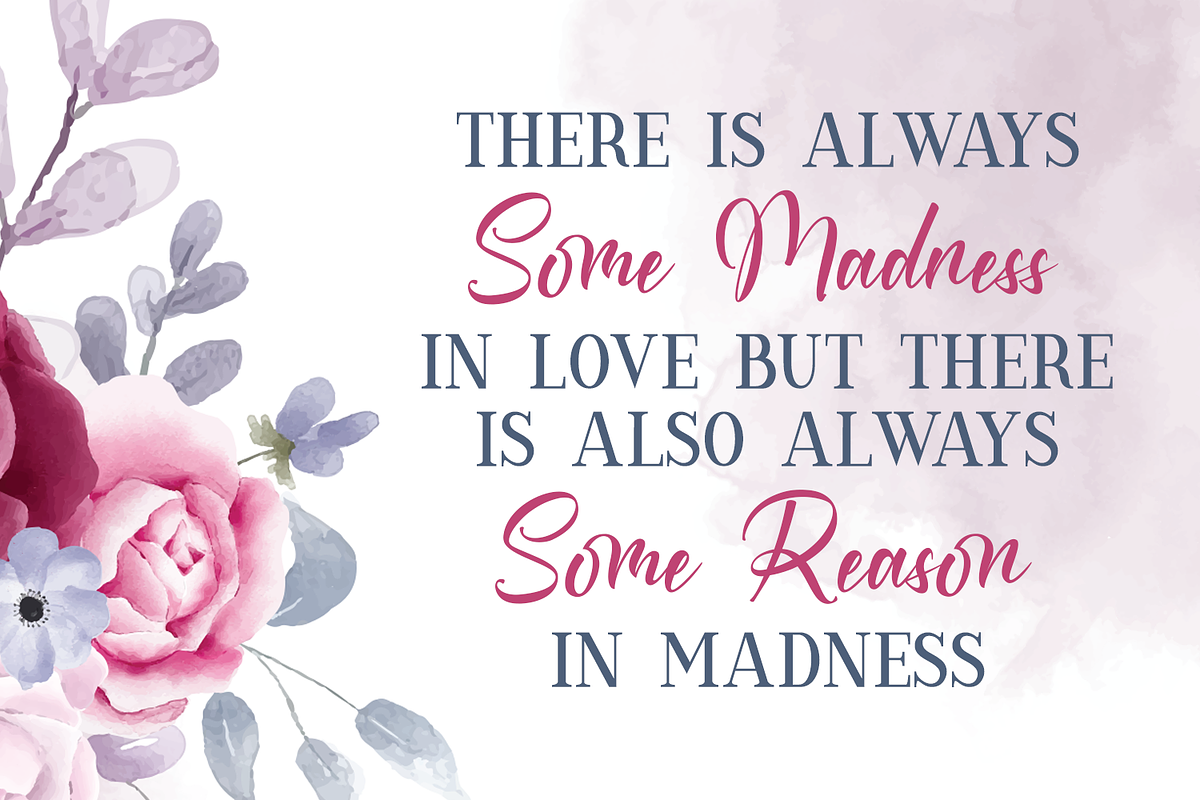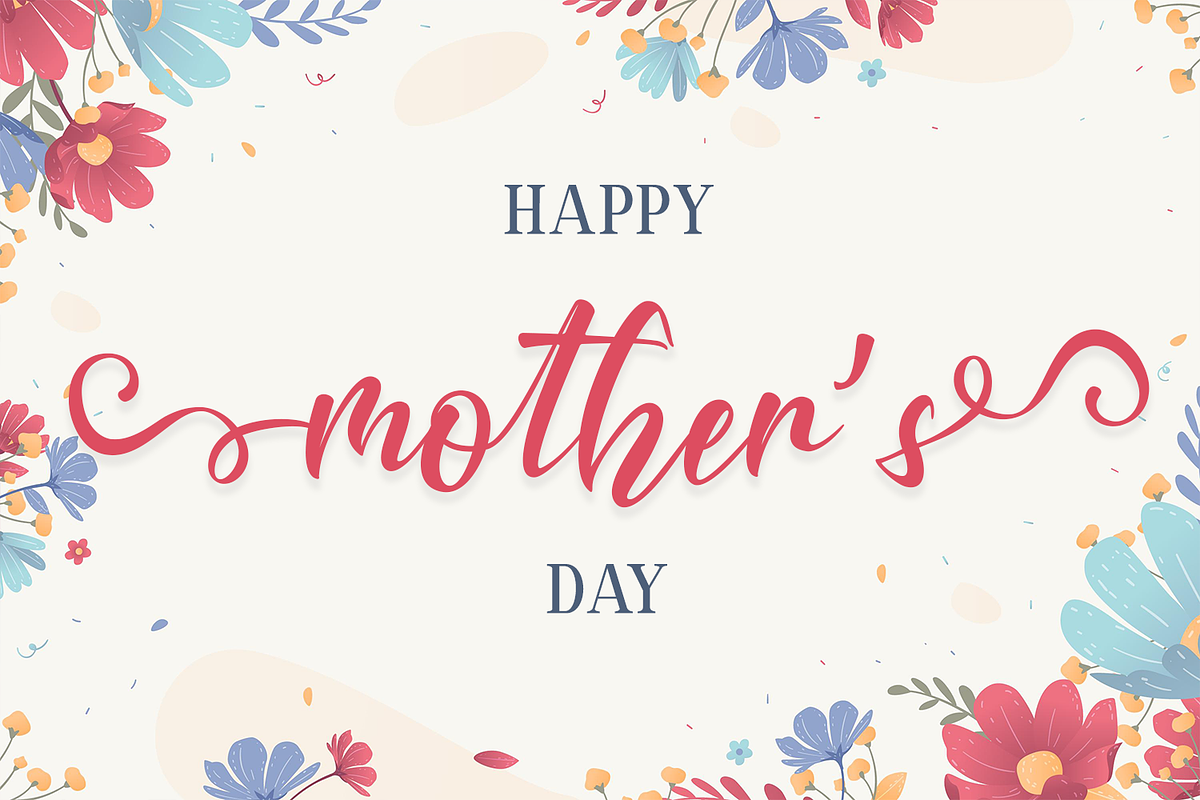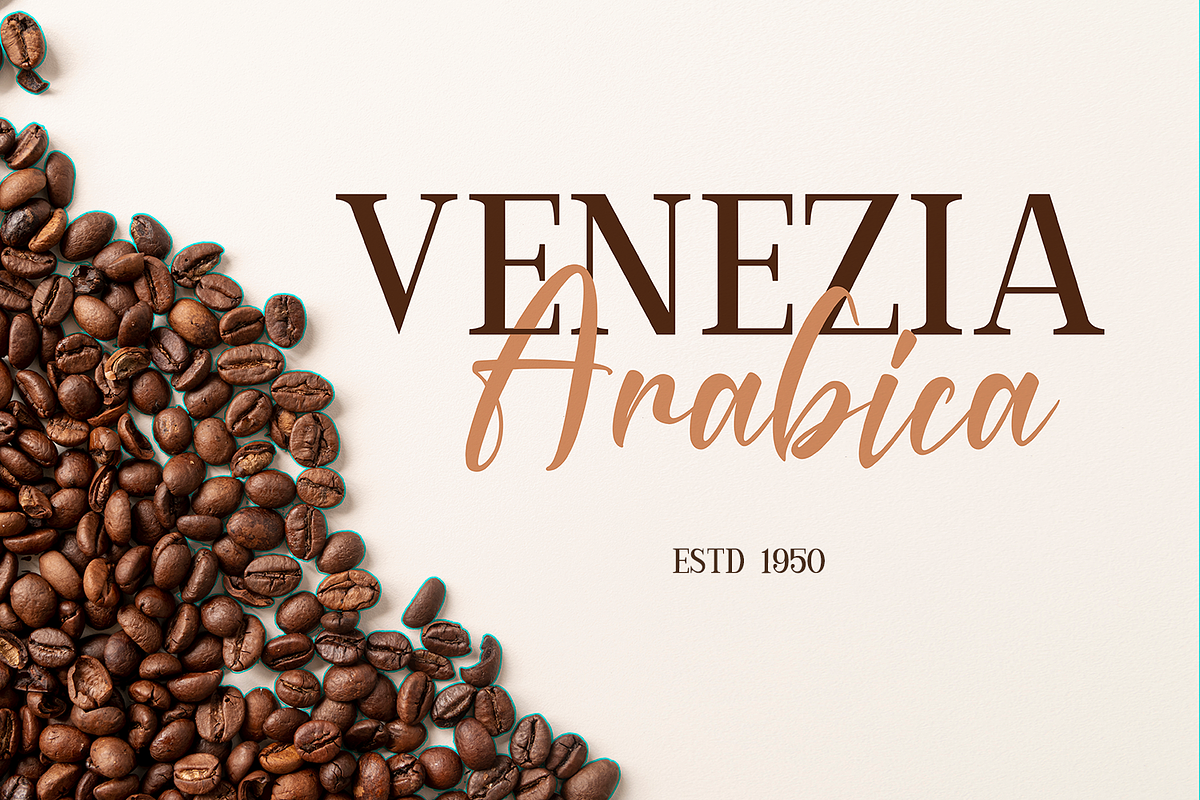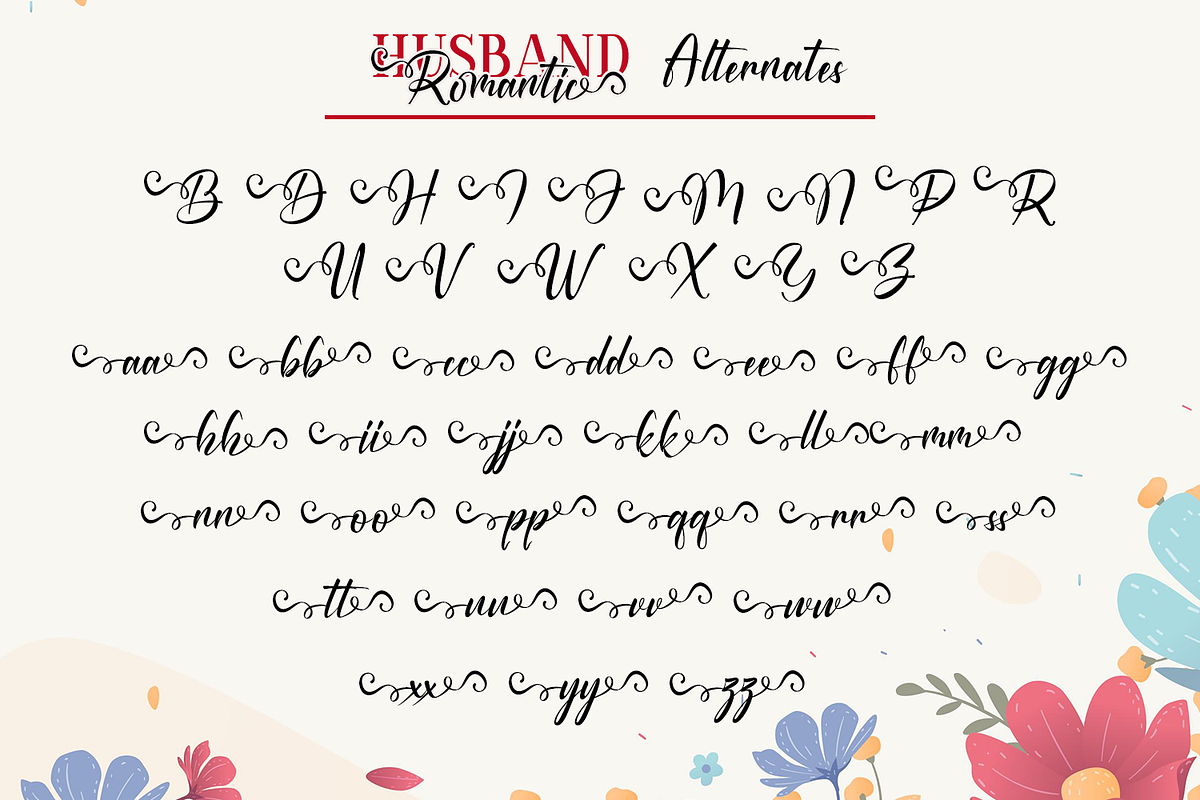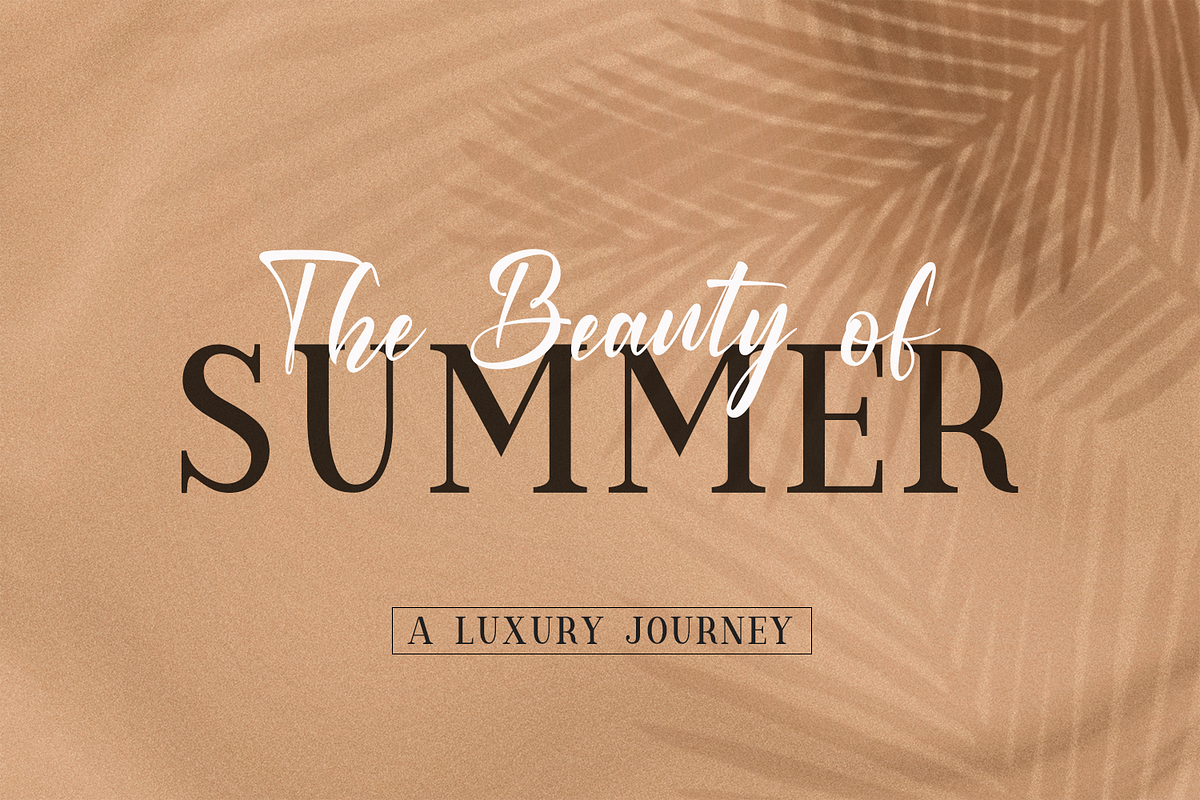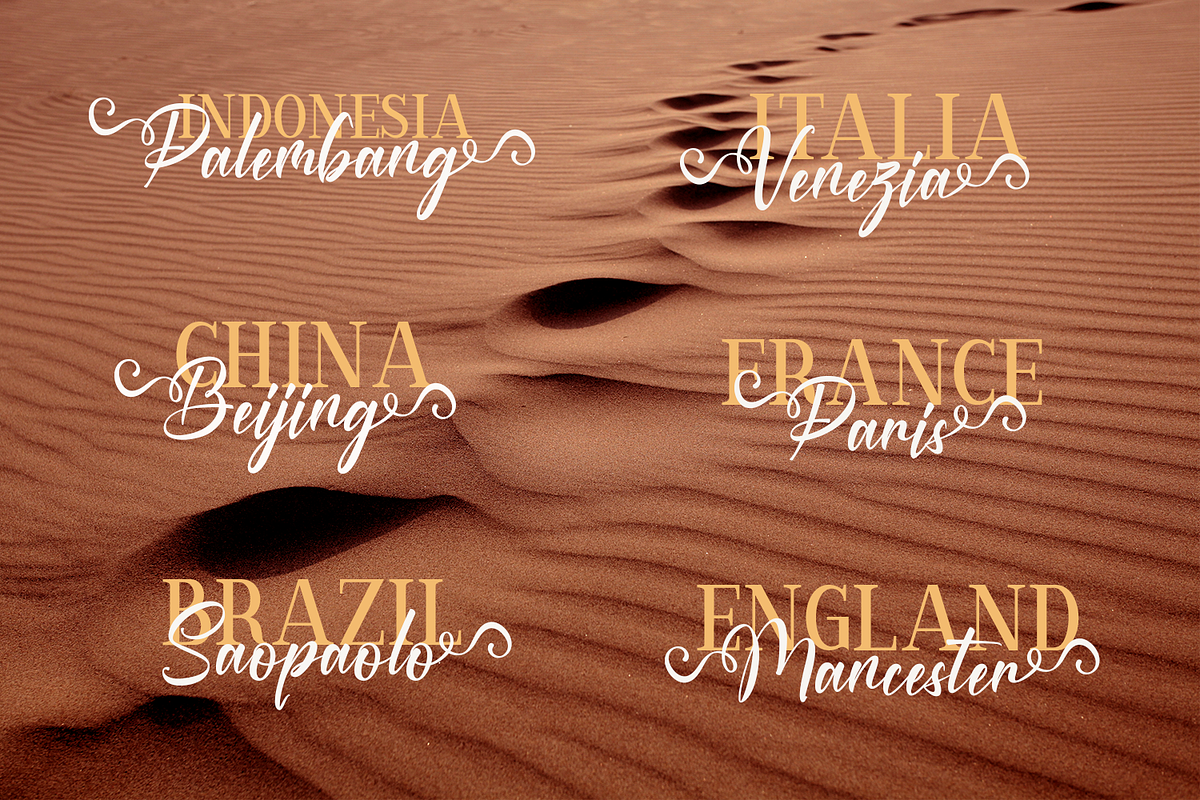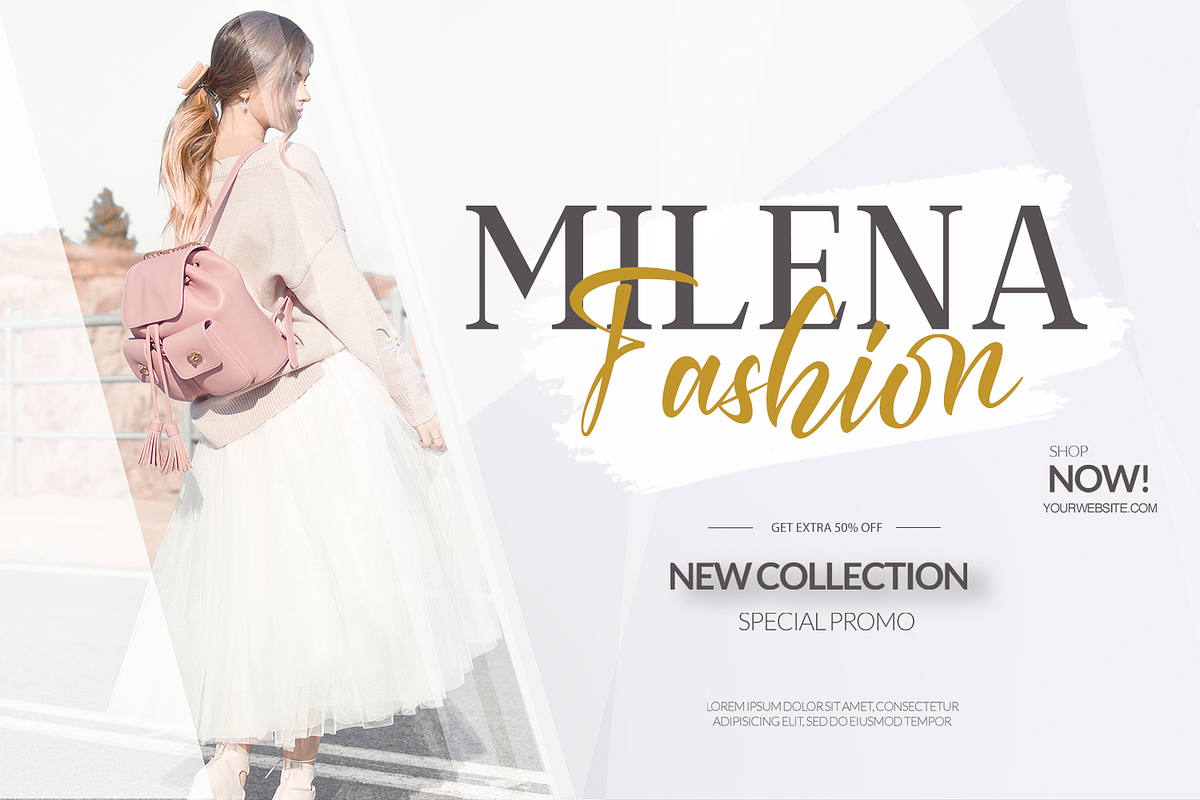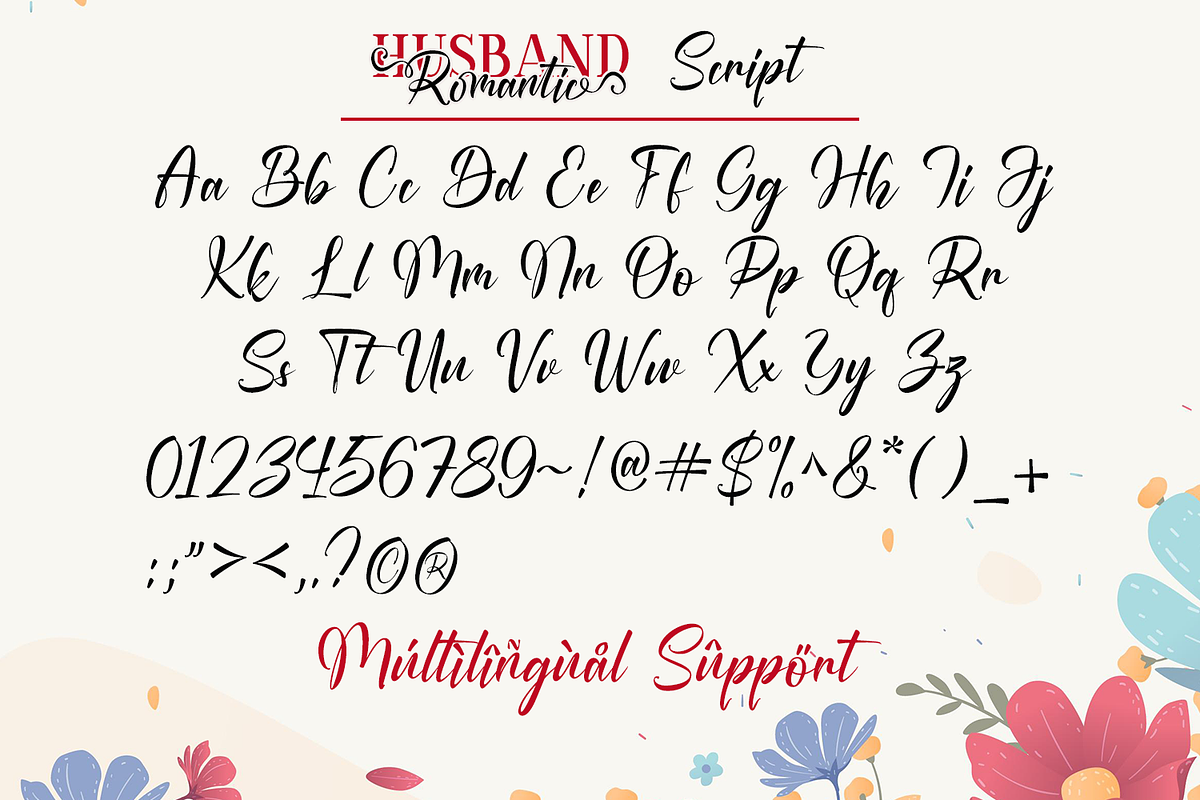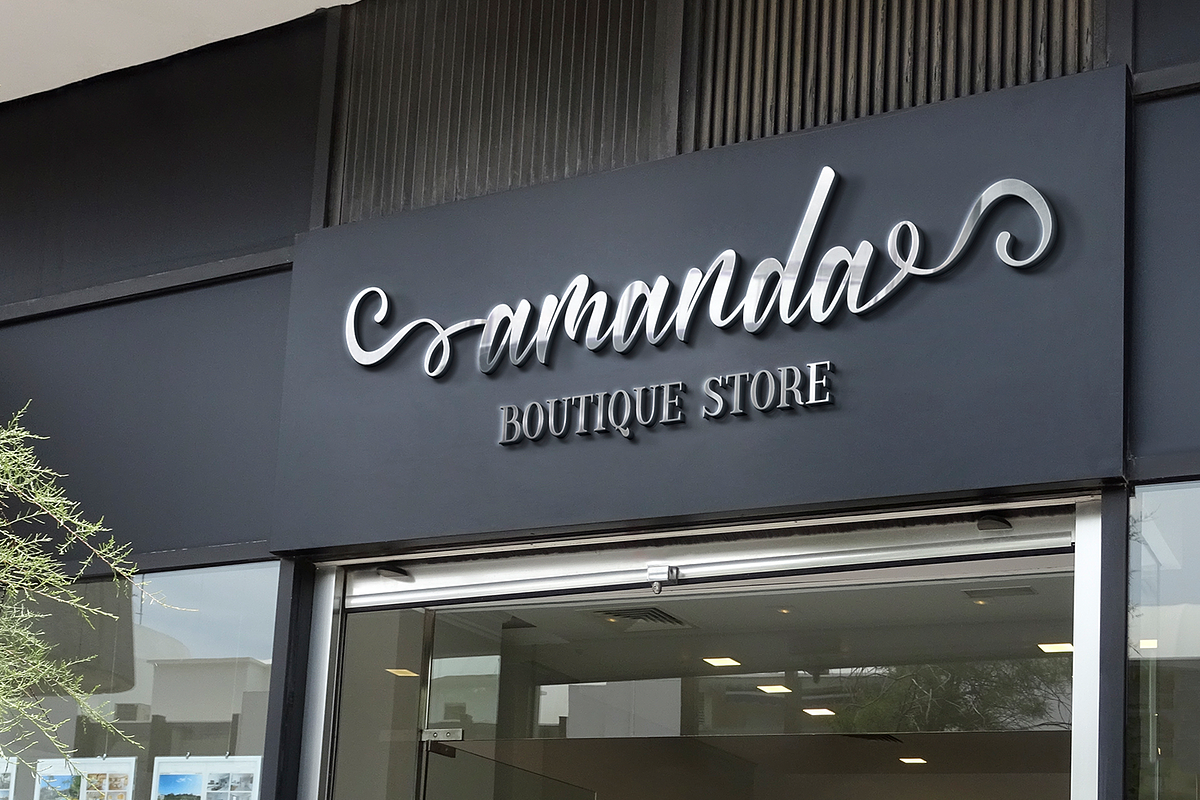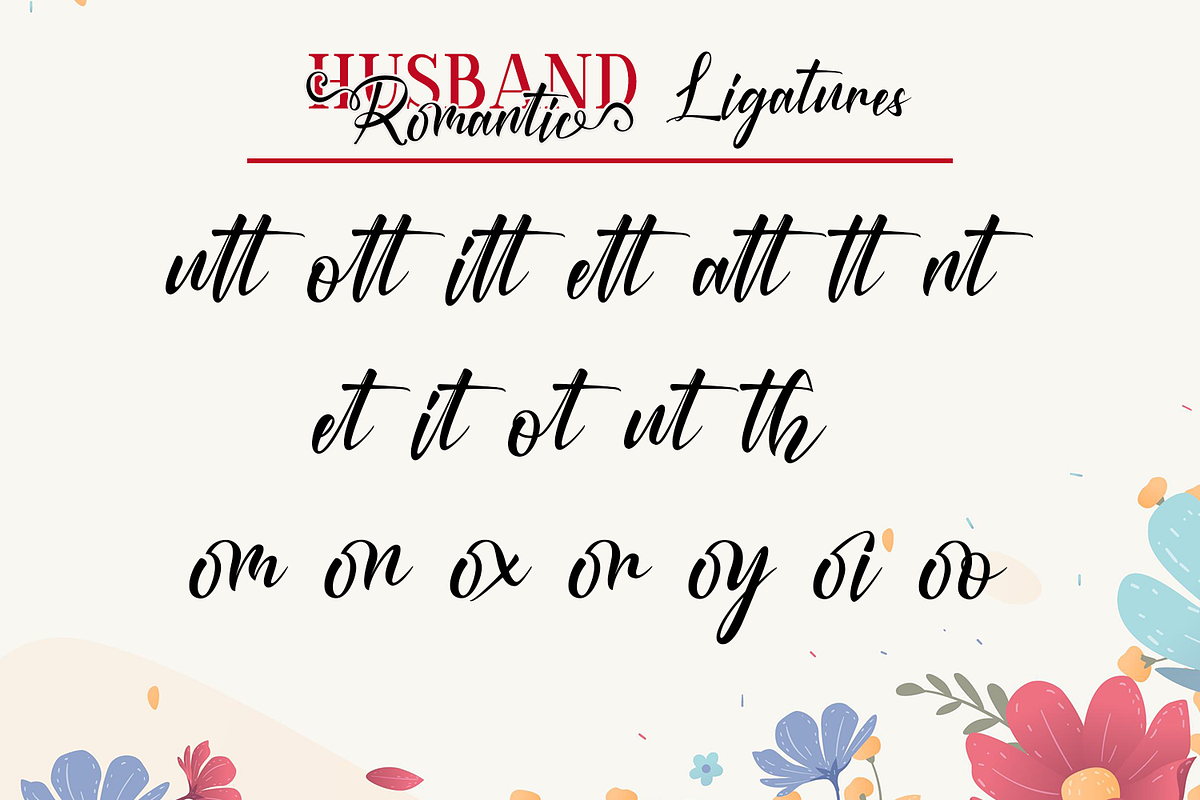
Husband Romantic
Husband Romantic is a lovely and elegant duo font (script and serif). It can easily be matched to an incredibly large set of projects, so add it to your creative ideas and notice how it makes them stand out! Husband Romantic is PUA encoded which means you can access all of the glyphs and swashes with ease!
FEATURES : -Uppercase -Lowercase -Number -Punctuation -Multilingual -PUA Encode -Opentype -Stylistic Alternate -Serif and Script